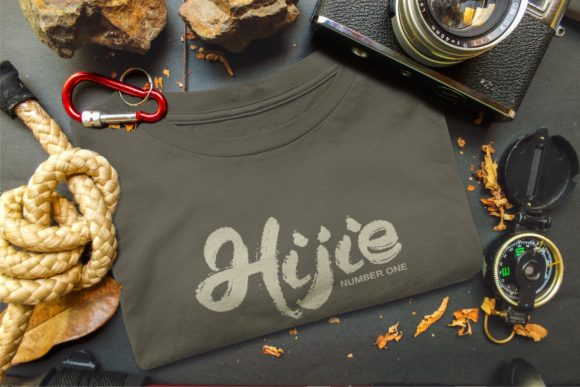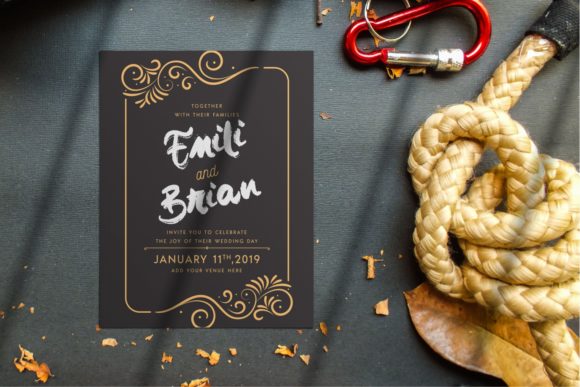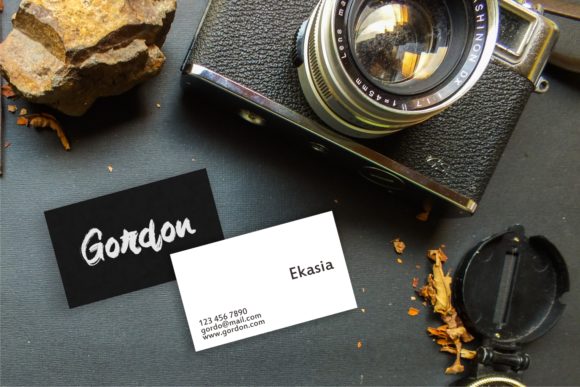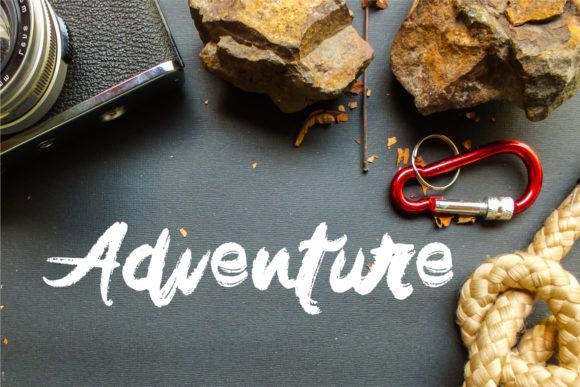
HomeScript FontsKronos Font Script Fonts Kronos Font FacebookXPinterestWhatsApp Kronos Font Poster 2 Kronos Font Poster 3 Kronos Font Poster 4 Kronos Font Poster 5 About Kronos Font Kronos is grunge inspired font with a calligraphy style. Get inspired by its bold & exciting character! DOWNLOAD ON CREATIVE FABRICAThis font is sold and delivered by Creative Fabrica. Font Canyon may earn a commission if you buy through this link. People also explored Bellanie Font Boomerang Font Hello Chanki Font Chanysa Hamida Font Daitengu Jingle Bells Font Valentine Font Jealous Font Sticky Planner Font 306 0 TagsKronos Font Previous articleZildjan FontNext articleRahayu Script Font LEAVE A REPLY Cancel reply Comment: Please enter your comment! Name:* Please enter your name here Email:* You have entered an incorrect email address! Please enter your email address here Website: Save my name, email, and website in this browser for the next time I comment. Personal Use Free Anti Personal Use Free Read more about this font Williana Personal Use Free Read more about this font Baby Mollusca Personal Use Free Read more about this font Darla Personal Use Free Read more about this font BLOG Best Fonts for T-Shirt Design – Top 2025 Picks In 2025, t-shirt design has become more than just fashion—it's a form of self-expression. Whether you're... Using Fonts in Digital Marketing: Tips to Strengthen Your Brand Identity Where to Buy American Fonts Online in 2024 Fonts That Capture the Spirit of New York City